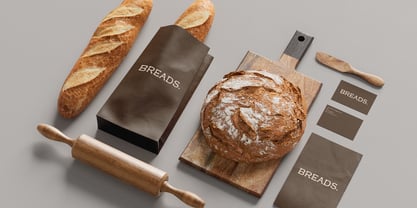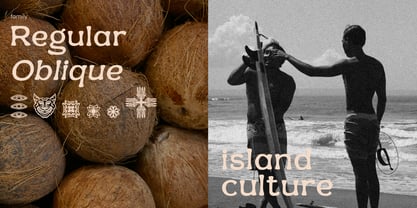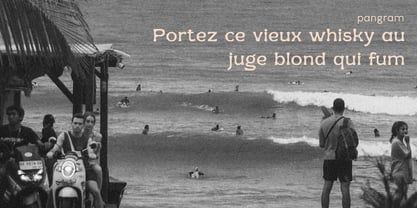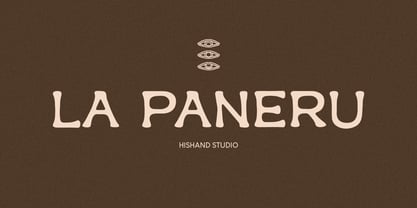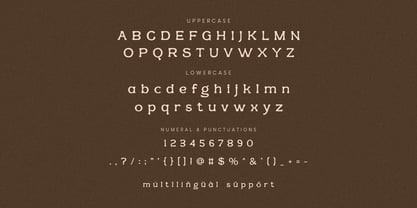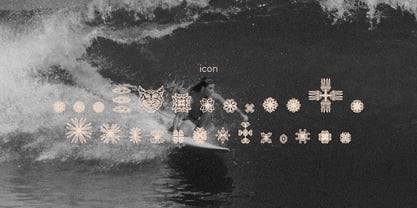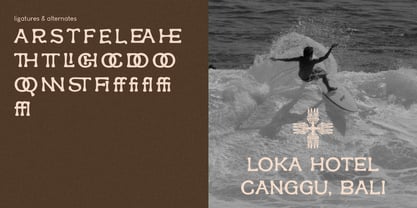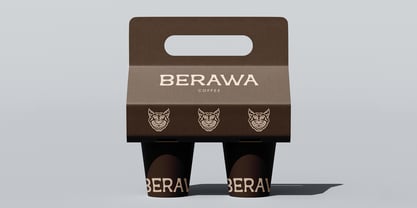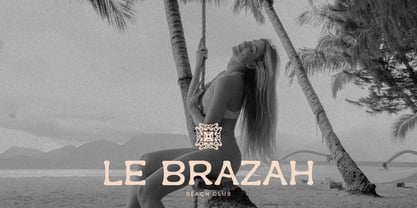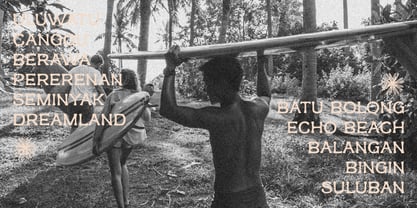
La Paneru
La Paneru is a display serif with a playful, uneven baseline that gives every word a handmade feel. The strokes wobble and flare into soft, rounded serifs, like they were drawn by hand rather than built on a grid. It carries a warm, earthy, boho character, the kind you'd spot on a vintage market sign, a ceramic shop label, or a menu board at a small coffee place with personality.
Despite the loose, organic strokes, La Paneru stays easy to read. The bold weight and generous letterforms keep it grounded, so it works well at large sizes for logos, headers, and packaging, not just as a novelty display font.
It suits brands that want to feel a little unpolished on purpose: eclectic cafes, artisan goods, boutique studios, or anything with a retro, sun-faded charm. Pair it with a simple sans serif for body text and let La Paneru carry the personality. Complete with :
- ligatures
- alternates
- regular
- oblique
- icon
- kerning
- multilingual support